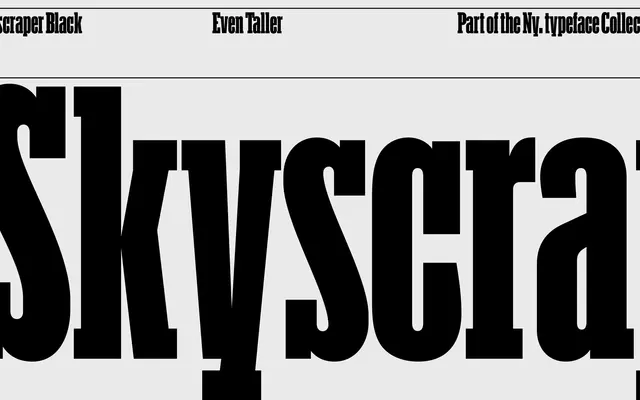
Ny. Slab Skyscraper
An ultra-condensed display slab serif commissioned by The New York Times Magazine, taken further than its sister cut Ny. Slab Tower for maximum vertical exaggeration.
Designed for The New York Times Magazine at the commission of Gail Bichler and Matt Willey, Ny. Slab Skyscraper is the most extreme variant in the Ny. Slab sub-family. It takes the proportions of Ny. Slab Tower and pushes them further still, producing a tall, tightly compressed slab suited to large-scale headlines and poster settings. Available in a single Black weight, it is a specialist cut built for moments where vertical drama is the editorial intent.
An extreme ultra-condensed slab serif designed for display use at large sizes, part of a family of editorial serifs created for The New York Times Magazine. Its highly exaggerated proportions place it firmly in the display slab subcategory.